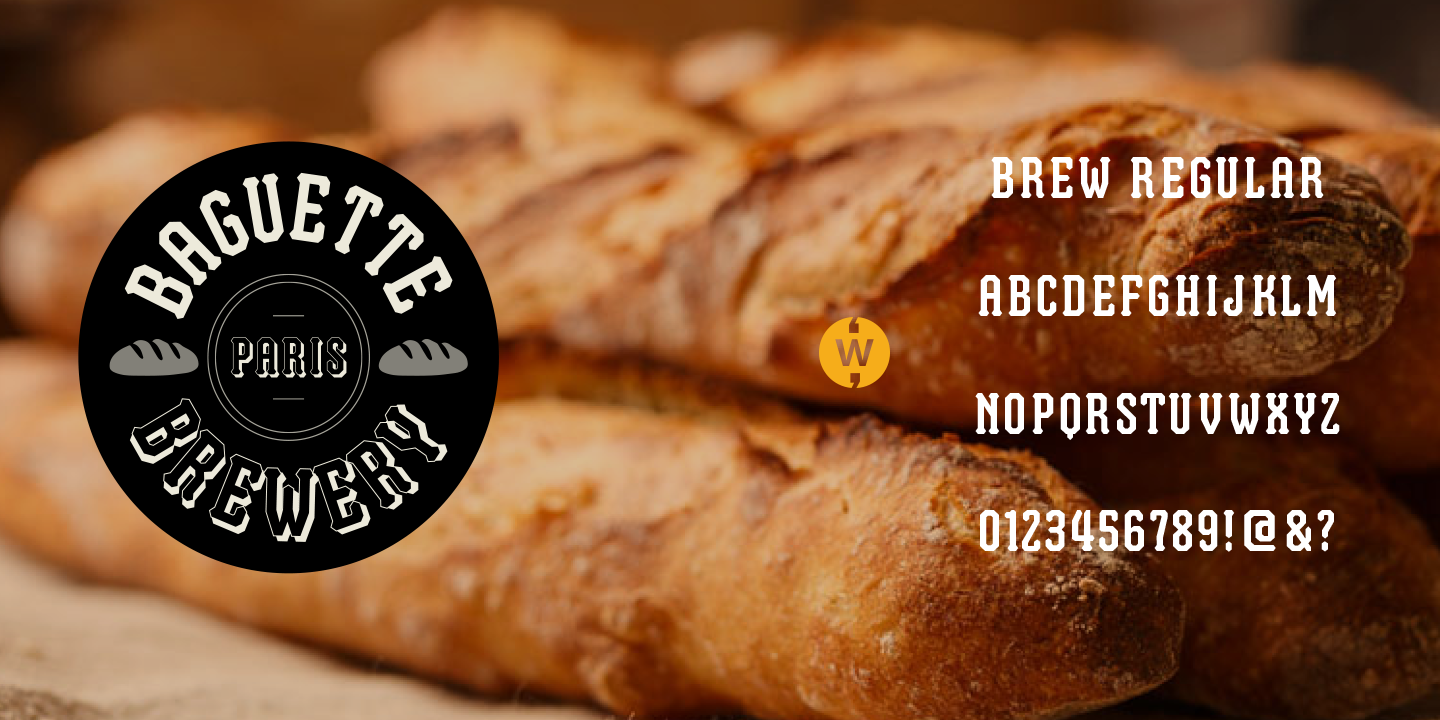
BREW
Designed by Robbie de Villiers, Brew is a display font family. This typeface has three styles and was published by Wilton Foundry.
Brew was created to give designers endless options in using a unique condensed style with a regular/solid, an outline and inline options to create display variations for branding, packaging and poster design.